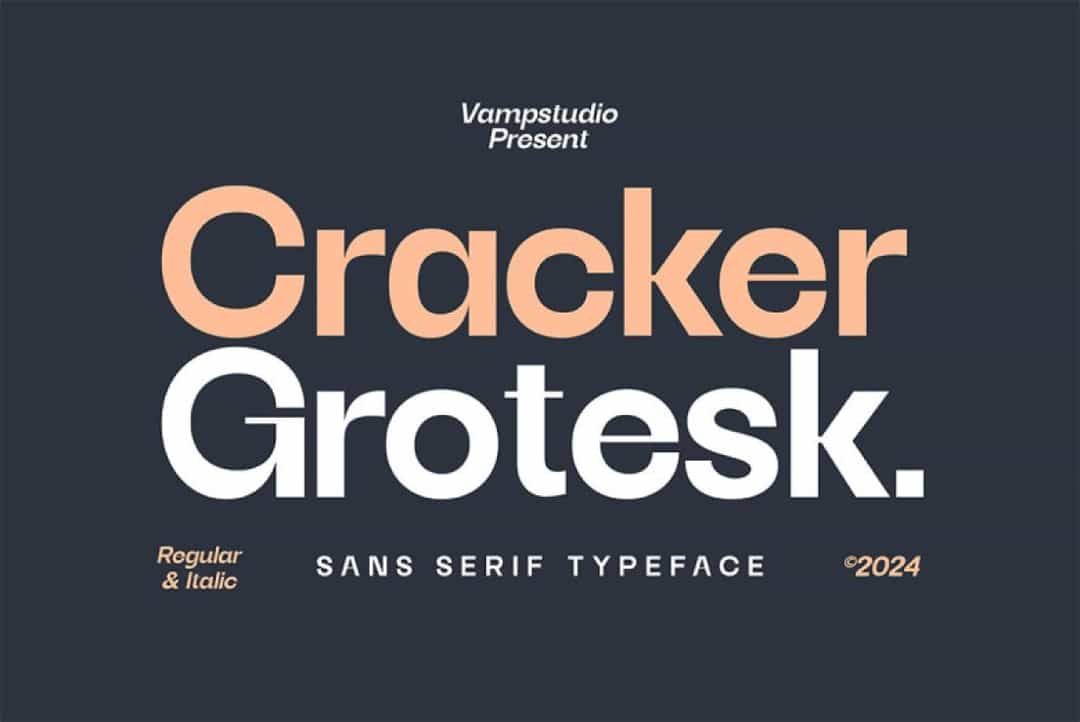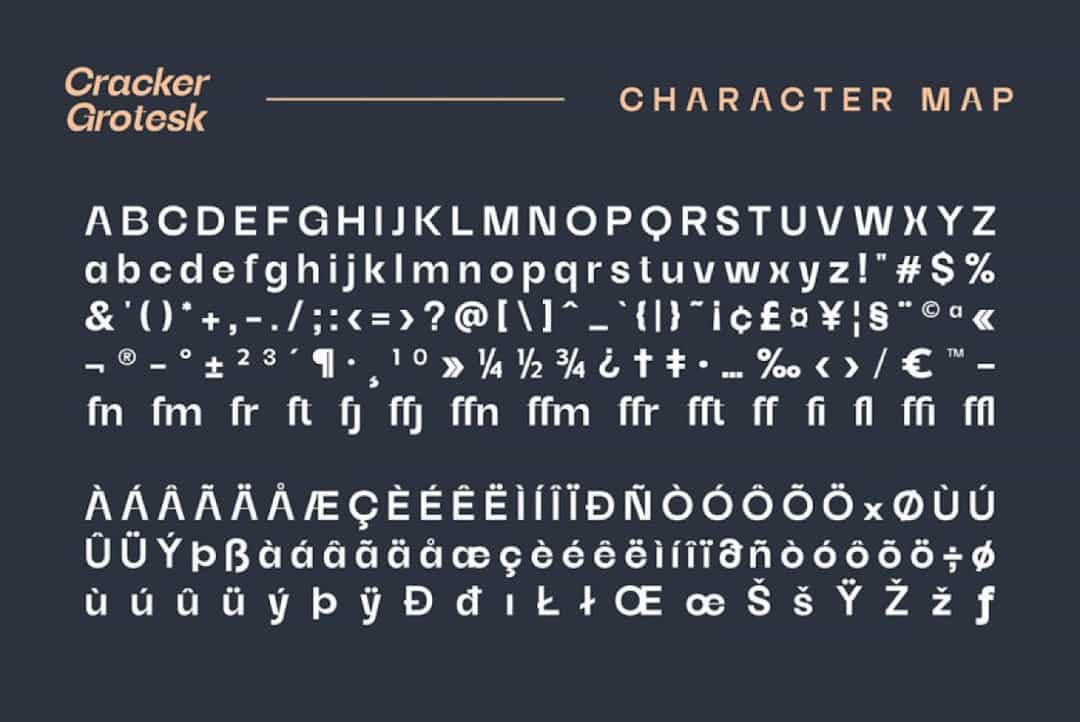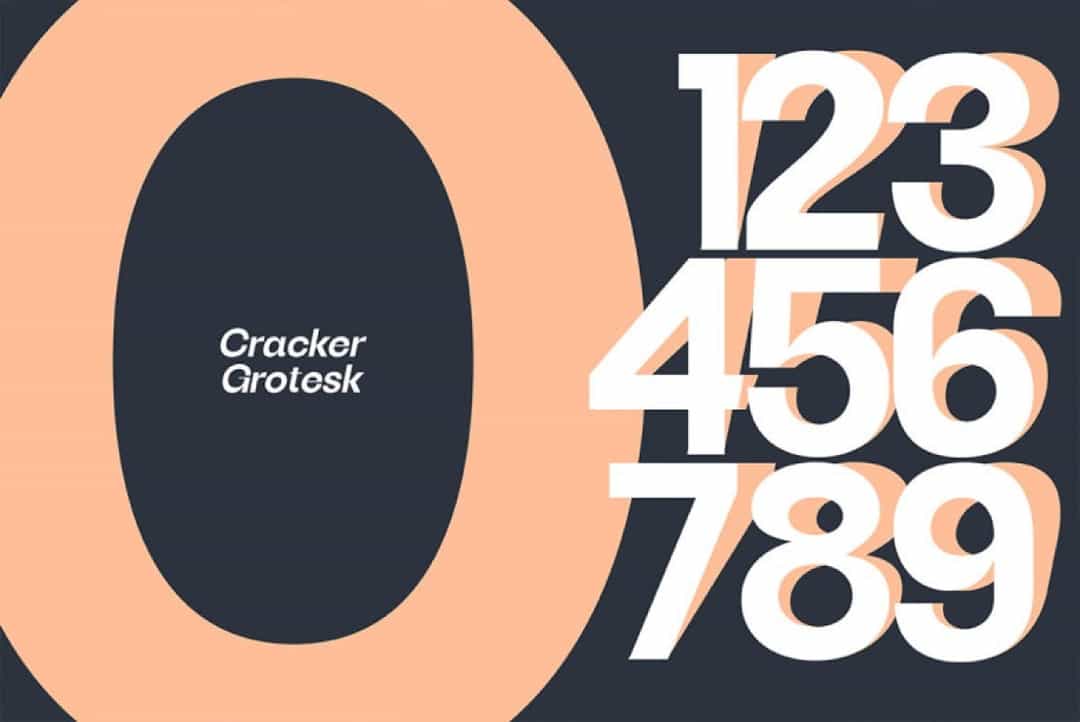
Cracker Grotesk Font Achieve sleek modernity in your layouts with this modern sans-serif font, perfect for creating minimalist, clean designs with a touch of elegance. Each persona in Cracker Grotesk was carefully created to combine modern design with timeless flexibility, making your work truly stand out with its style and clarity.